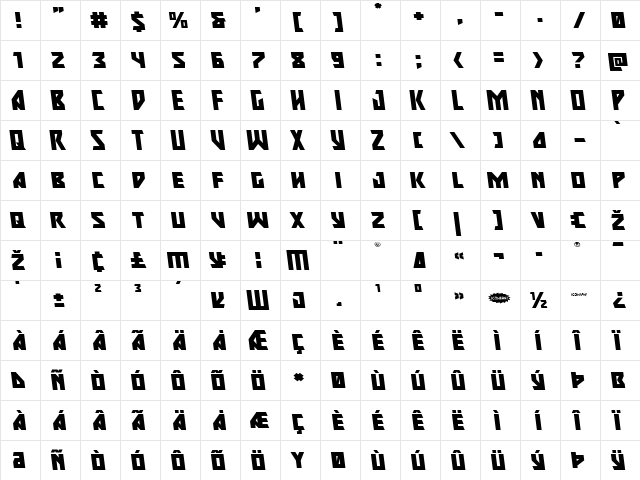
Major Force Expanded Leftalic Expanded Italic
Design Context for Major Force Expanded Leftalic Typeface
Major Force Expanded Leftalic has the bold swagger of sports branding: strong, assertive letterforms designed to dominate headlines and jerseys alike. Its italic angle brings a sense of urgency and motion to the letterforms.
A natural choice for gym brands, fantasy sports, jersey lettering, and action-driven headlines.
Font Pairing: Use alongside a condensed or geometric sans for supporting copy — keep the pairing bold, functional, and free of ornament.
Pro Tip: Use Major Force Expanded Leftalic in all-caps headlines where its athletic energy can fully express itself. Pair with a solid, simple sans for supporting text.